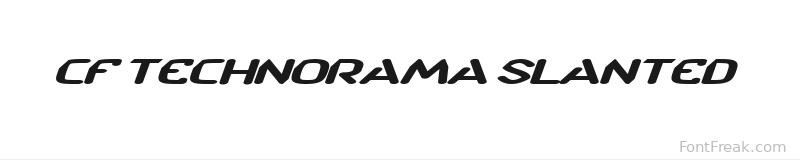
CF TechnoRama Slanted
CF TechnoRama Slanted is a striking display font designed by Cloutierfontes, categorized as a sans-serif typeface. This font features a unique slanted style that adds a dynamic and contemporary flair to any design project. The stroke weight is bold, providing excellent visibility and impact, while the clean lines and smooth curves enhance its modern aesthetic. The contrast between thick and thin strokes is minimal, making it suitable for a variety of applications. The spacing is well-balanced, allowing for easy readability even at larger sizes, which is a key advantage for headers and titles.
This font excels in use cases such as movie posters, where its bold presence can attract attention and convey a sense of excitement. It's also ideal for branding materials, such as logos and business cards, giving a professional yet approachable look. Additionally, CF TechnoRama Slanted can elevate restaurant menus, providing a unique character that stands out to patrons. Graphic designers and small business owners will find this font particularly appealing for promotional materials, ensuring their projects resonate with their target audience.
The target audience for CF TechnoRama Slanted includes graphic designers looking for a versatile display typeface, small business owners seeking to enhance their branding, and content creators who want to make a memorable visual statement. The font's modern and energetic design makes it a perfect choice for projects that aim to capture attention and convey a sense of innovation.
In conclusion, CF TechnoRama Slanted font free download offers a distinctive and stylish option for those looking to make a bold statement in their designs. Its combination of modern aesthetics and versatility makes it an excellent choice for a wide range of creative projects, ensuring it stands out in any design landscape.